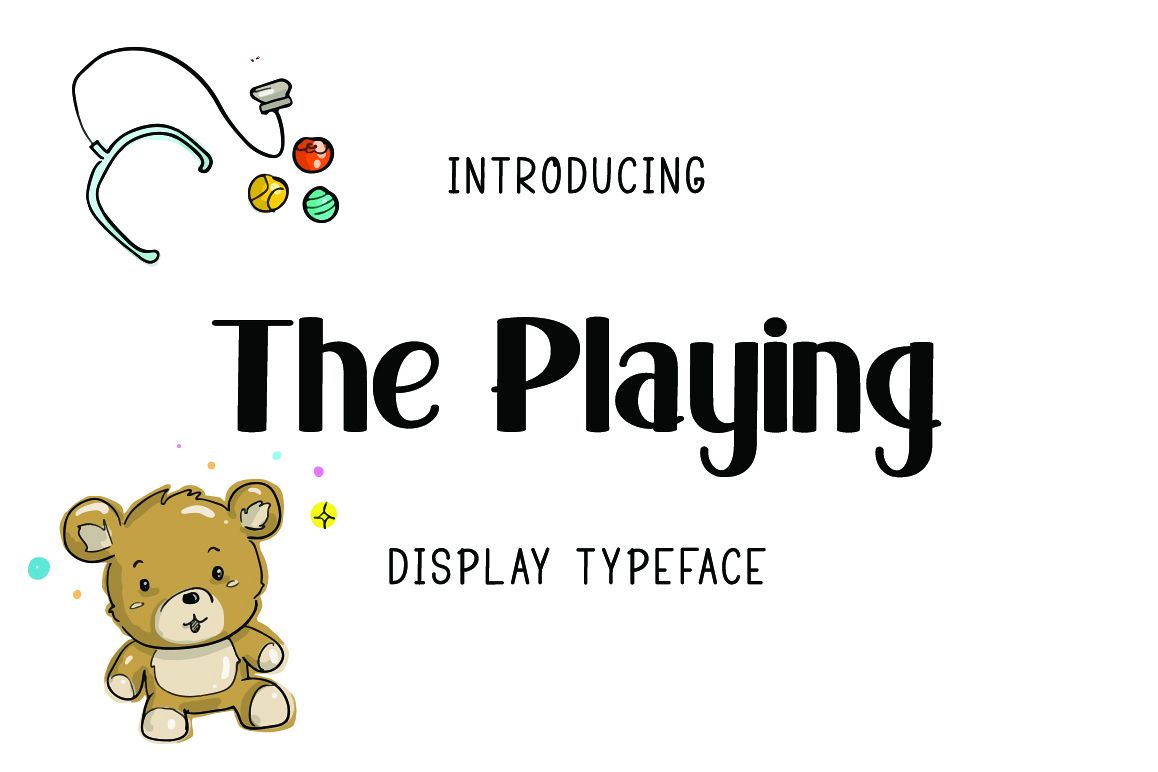
The Playing 3 Falimy
ThePlaying
Introducing The Playing are 3 Fonts made in thick norms and mono lines that cover all upper and lower case letters, also European letters. This font is very suitable to be applied to children's displays in the form of Games, T-Shirts, Books, Mugs, Mock Ups, Greeting Cards and othersFeatures:
• Numbers & Symbols